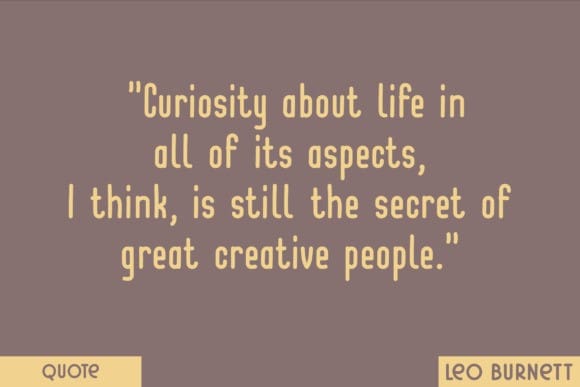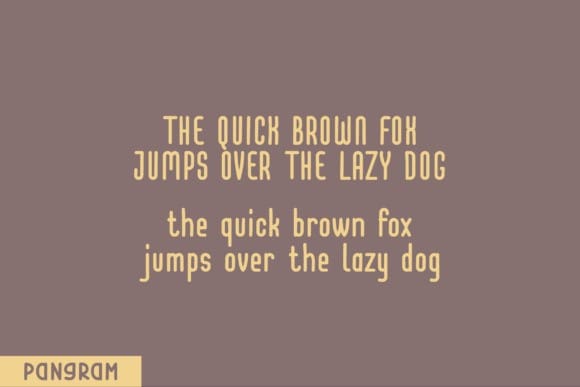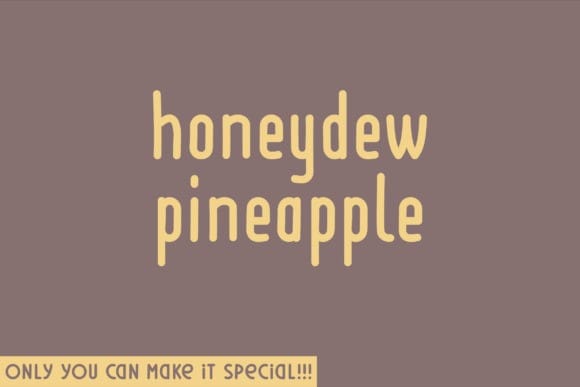
Honeydew Pineapple Font
Honeydew Pineapple feels playfully nostalgic and delivers an incredible vintage aesthetic. Use this serif font to add that special retro touch to any design idea you can think of!